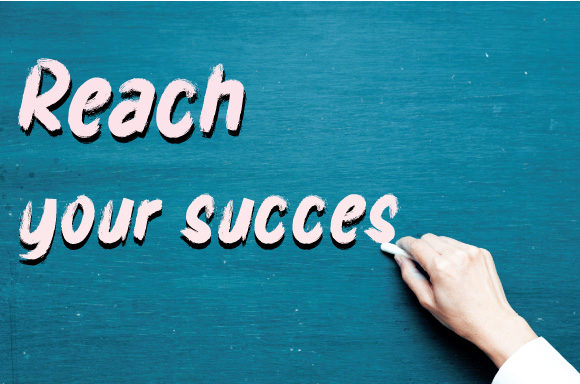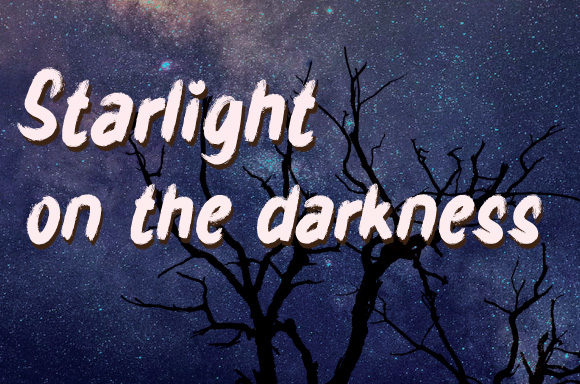
Introducing Handletter Brush Font: The Perfect Casual and Creative Companion
Are you a designer, crafter, or DIY enthusiast looking for a font that embodies a personal touch? Look no further than the Handletter Brush Font. This casual, thick lettered handwritten font is created by using a brush pen, giving it a clean and natural look that’s perfect for a variety of projects. In this article, we’ll dive into the world of Handletter Brush Font and explore its features, benefits, and uses.
What is Handletter Brush Font?
Handletter Brush Font is a unique and stylish font that’s designed to mimic the look of handwriting with a brush pen. Its casual and relaxed vibe makes it an excellent choice for a wide range of applications, from logos and branding to social media graphics and crafty DIY projects. The font’s clean and natural appearance ensures that it will complement any design without overpowering it.
Features of Handletter Brush Font
- Handwritten with a brush pen: The font’s authentic, hand-crafted look is achieved by using a brush pen, giving it a distinctive character.
- Clean and natural: The font’s clean lines and natural appearance make it easy to read and visually appealing.
- Casual and relaxed: Handletter Brush Font has a laid-back, informal feel that’s perfect for creative projects.
- Thick lettered: The font’s thick letters make it highly legible, even at smaller sizes.
- Versatile: Handletter Brush Font can be used for a wide range of projects, from logos and branding to social media graphics and crafty DIY projects.
Benefits of Using Handletter Brush Font
So, why choose Handletter Brush Font for your next project? Here are just a few benefits of using this versatile font:
- Adds a personal touch: Handletter Brush Font’s handmade look adds a personal touch to any design, making it perfect for crafty DIY projects and small businesses.
- Easy to read: The font’s clean lines and thick letters make it highly legible, even at smaller sizes.
- Versatile: Handletter Brush Font can be used for a wide range of projects, from logos and branding to social media graphics and crafty DIY projects.
- Unique: The font’s distinctive character ensures that your design will stand out from the crowd.
Uses for Handletter Brush Font
Handletter Brush Font is an incredibly versatile font that can be used for a wide range of projects. Here are just a few ideas to get you started:
- Logos and branding: Use Handletter Brush Font to create a unique and memorable logo for your business or brand.
- Social media graphics: Add a personal touch to your social media graphics with Handletter Brush Font.
- Crafty DIY projects: Handletter Brush Font is perfect for crafty DIY projects, such as handmade cards, invitations, and signs.
- Stationery and paper goods: Use Handletter Brush Font to create beautiful and unique stationery and paper goods, such as notebooks, journals, and stickers.
Tips for Using Handletter Brush Font
Here are a few tips for getting the most out of Handletter Brush Font:
- Experiment with colors: Handletter Brush Font looks great in a variety of colors, so don’t be afraid to experiment and find the perfect hue for your project.
- Pair with other fonts: Handletter Brush Font pairs well with other fonts, so try combining it with a sans-serif font for a unique look.
- Use it for headings: Handletter Brush Font is perfect for headings and titles, so use it to add a personal touch to your design.
| Font Name | Handletter Brush Font |
Handletter Brush Font is a versatile and stylish font that’s perfect for designers, crafters, and DIY enthusiasts. Its clean and natural appearance, combined with its casual and relaxed vibe, make it an excellent choice for a wide range of projects. Whether you’re looking to create a unique logo, add a personal touch to your social media graphics, or craft beautiful stationery and paper goods, Handletter Brush Font is the perfect companion.